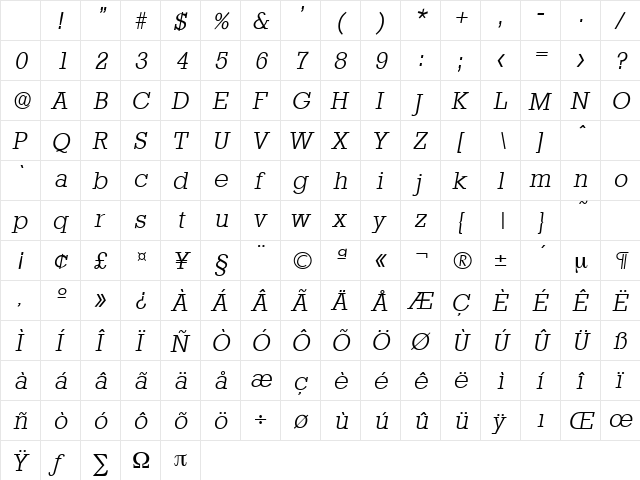
Stafford-LightIta Regular
Design Context for Stafford-LightIta
Stafford-LightIta is a composed and adaptable typeface that performs quietly and consistently across a wide range of design contexts. Its slender proportions lend an understated elegance to any composition.